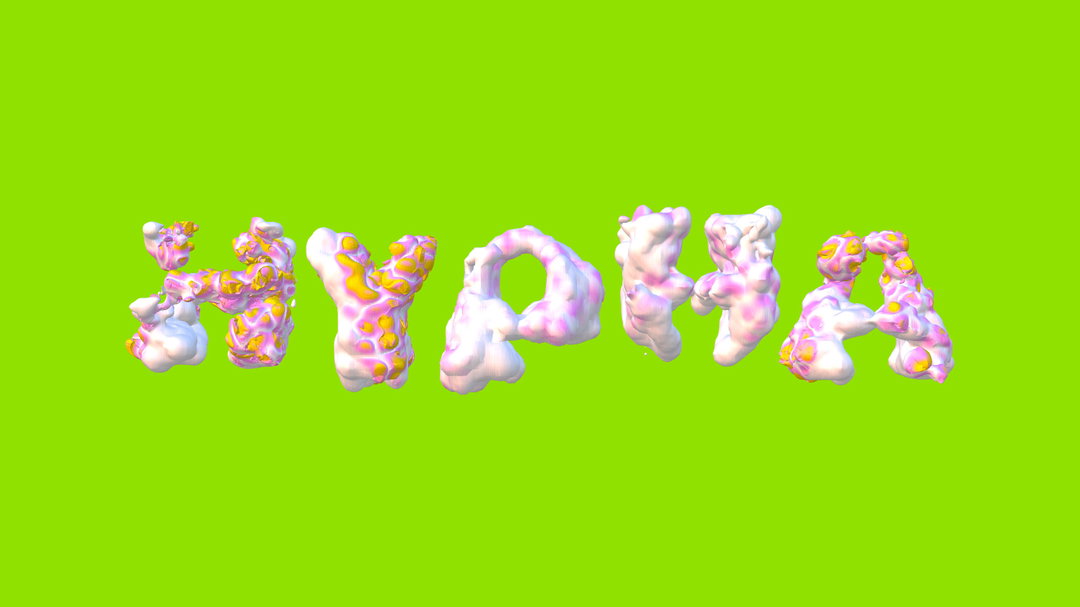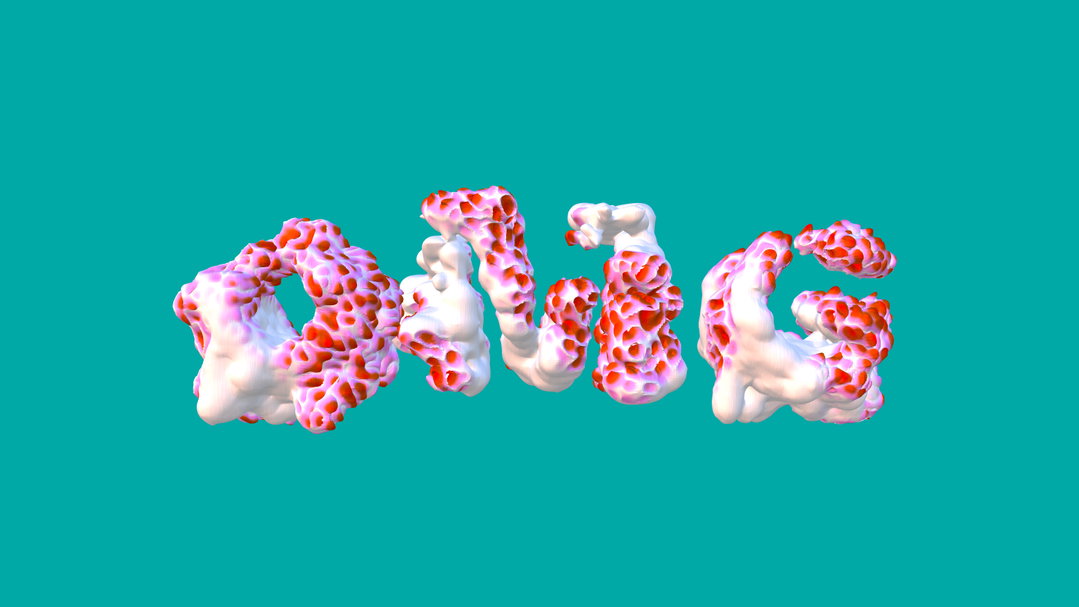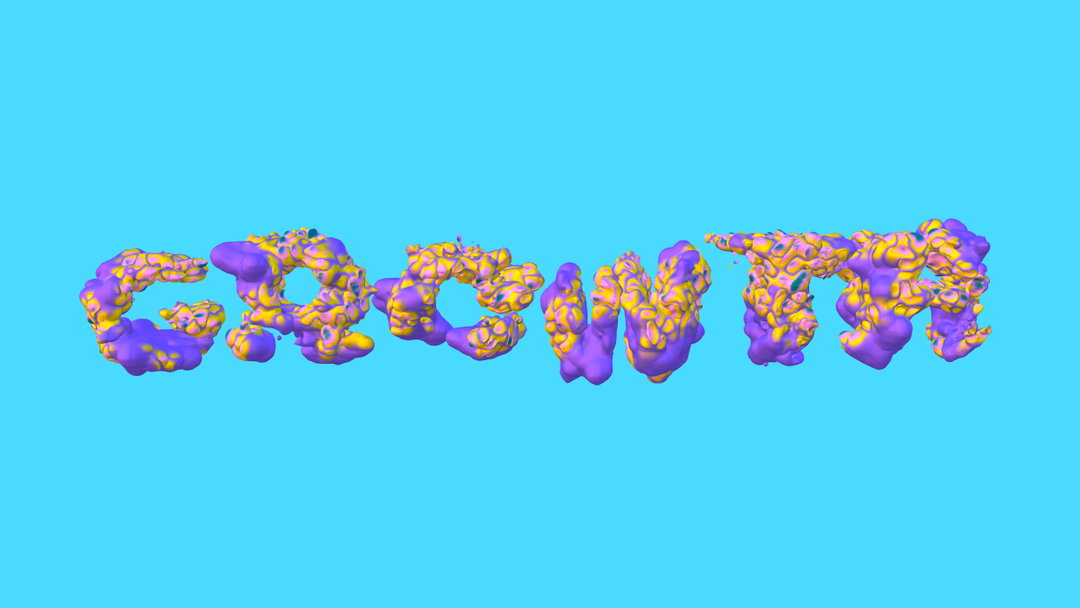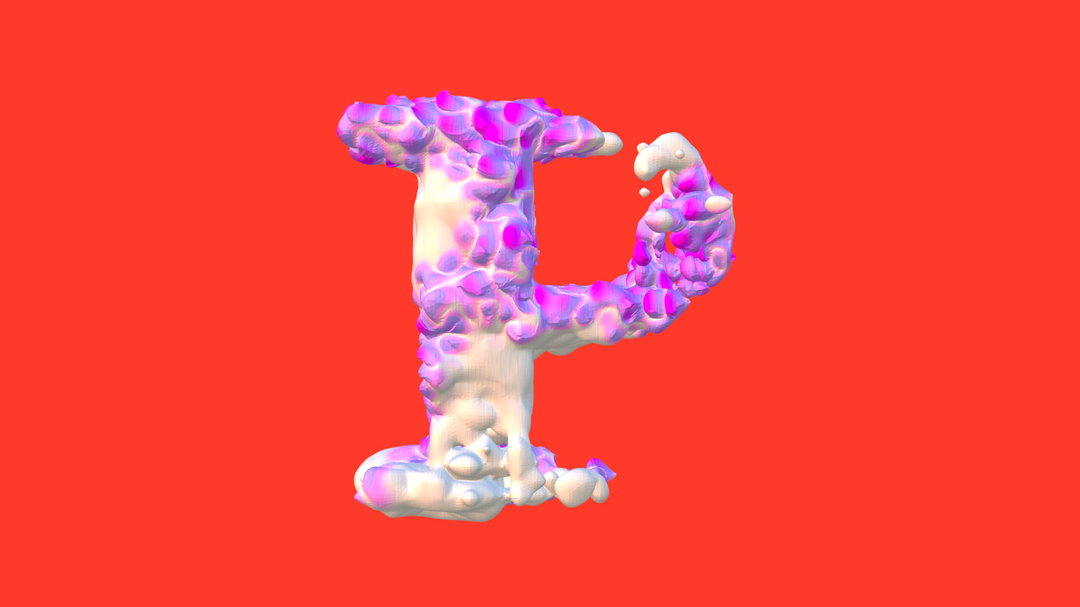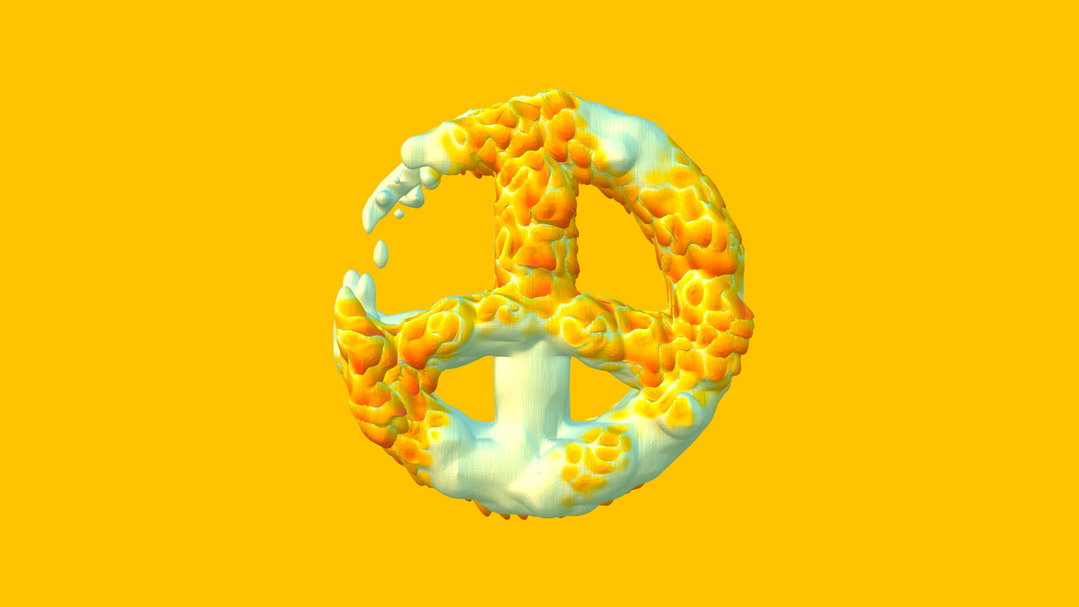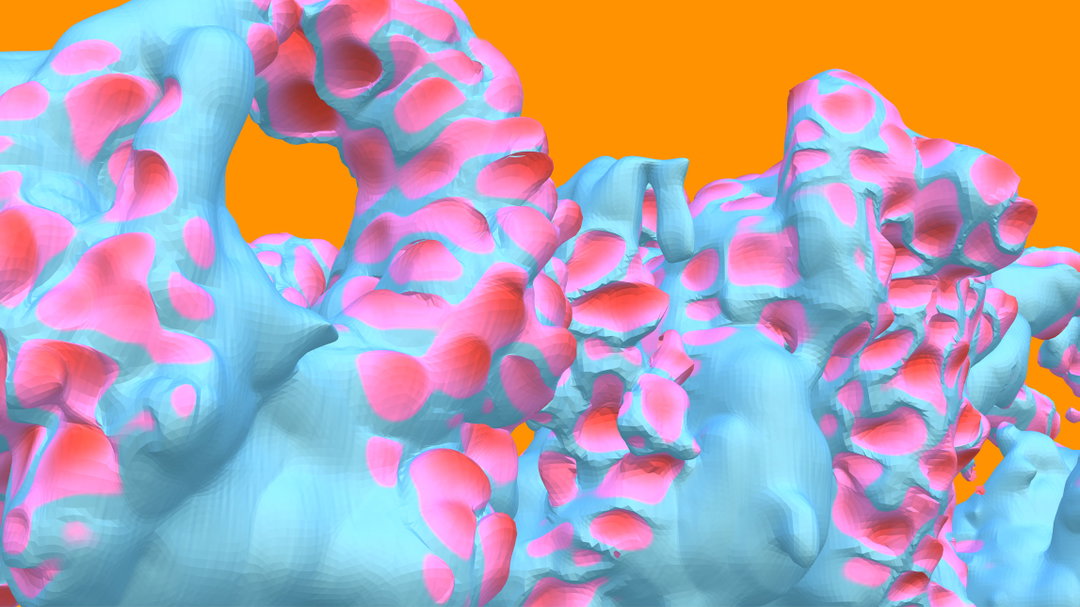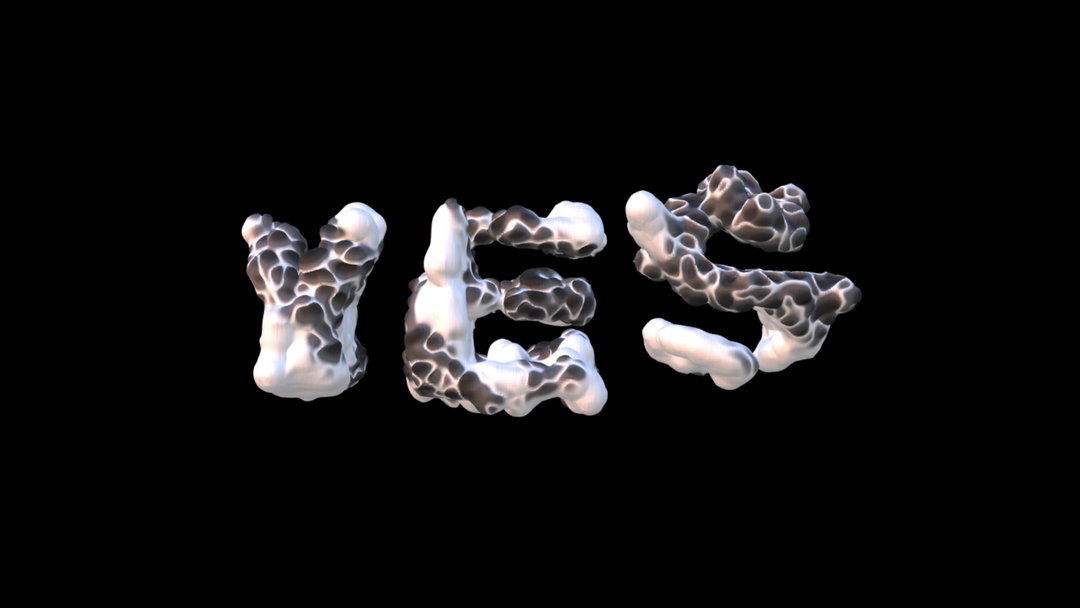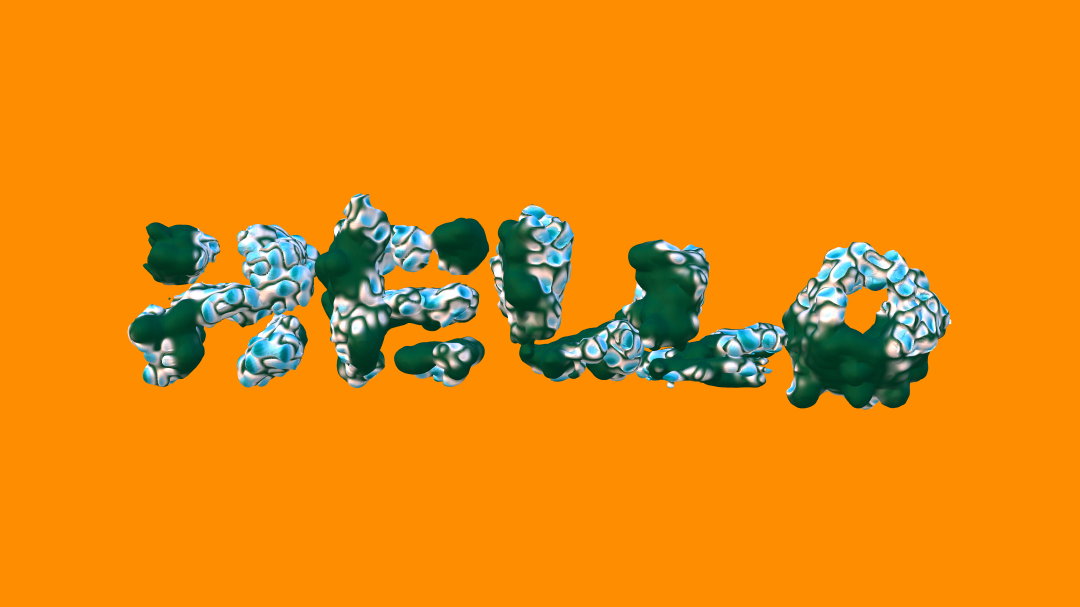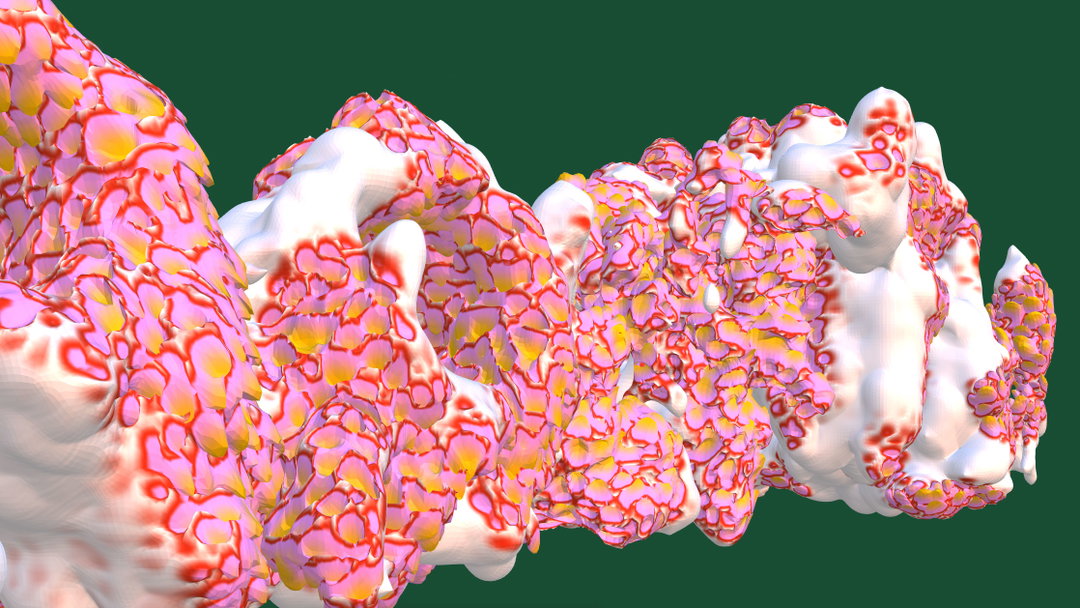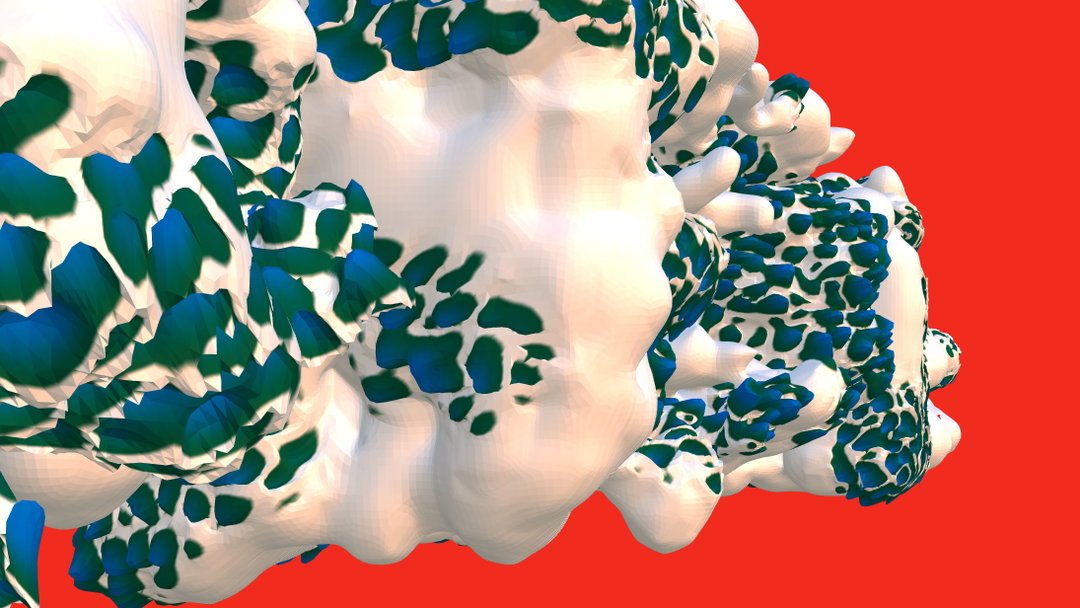
How Pentagram and Counterpoint “grew” typeface Hypha for an exhibition about mushrooms
The team built an interactive tool that can generate expressive letterforms, simulating the mycelium growth found in fungi to allow the characters to naturally grow and mutate.
Earlier this year, Pentagram partners Jody Hudson-Powell and Luke Powell designed the identity for Somerset House’s exhibition, Mushrooms: The Art, Design and Future of Fungi. A key element to the graphics was the typeface Hypha, itself generative and inspired by the way mushrooms grow. The method by which the typeface was “grown” is now available as an online interactive tool, created together with tech-led design studio Counterpoint Studio, so anyone can have a go at creating their own organic characters. It puts users in the shoes of the designers, who also – thanks to the nature of, well, nature – had no idea what the typeface was going to look like when they started.
“Our initial ideas were inspired by the process of growth and decay that mushrooms help facilitate,” Luke Powell tells It’s Nice That. “We wanted to create an identity that embraced the dirt and unevenness of the natural world and made a connection between the organic and digital which is so important to the current resurgence of interest in mushrooms.” Since the design was to be process-driven, the team still had no concept of how it would look, even after deciding on how to build the generative tool. “We couldn’t be completely sure how the algorithms we were using would behave and look in the end,” he explains, which put them in the awkward position of not being able to show the final letterforms to their client until late in the process. Luckily, he says, Somerset House were “happy to come on the journey”.
Working in a way that gives aesthetic power to an algorithm required the designers to firstly choose which growth algorithms to use, and then how best to control their parameters. This included choosing geometries that “encouraged” the simulated mycelium to grow into recognisable shapes. Morphogenic algorithms were selected based on which felt “the most mushroom-like,” Powell says, but most other decisions were more pragmatic, such as making sure the letters had space to grow, but not in areas that would make letters illegible. It’s built for random possibility but “with its own stylised forms as a result” he adds.
Counterpoint was brought on board to create the generative typeface, which looked to “explore this weird fungal aesthetic, whilst also producing novel, legible letterforms” says co-founder Tero Parviainen. “The algorithm we used is based purely on the science of mushroom growth, with absolutely no consideration of aesthetics. The random mutation was relatively easy; the challenge was to harness the algorithm for typographic use, for which it was not designed.” So the studio devised an approach that created a ‘substrate’ – a fertile area within which the mushroom type could grow – and an ‘inhibitor’, an area where it could not. “The process of type design then became one of combining these positive and negative volumes to define the area of ‘soil’ where the mushroom would be cultivated,” explains Counterpoint’s Sam Diggins, “as well as the amount and placement of fertiliser to maximise or limit growth.”